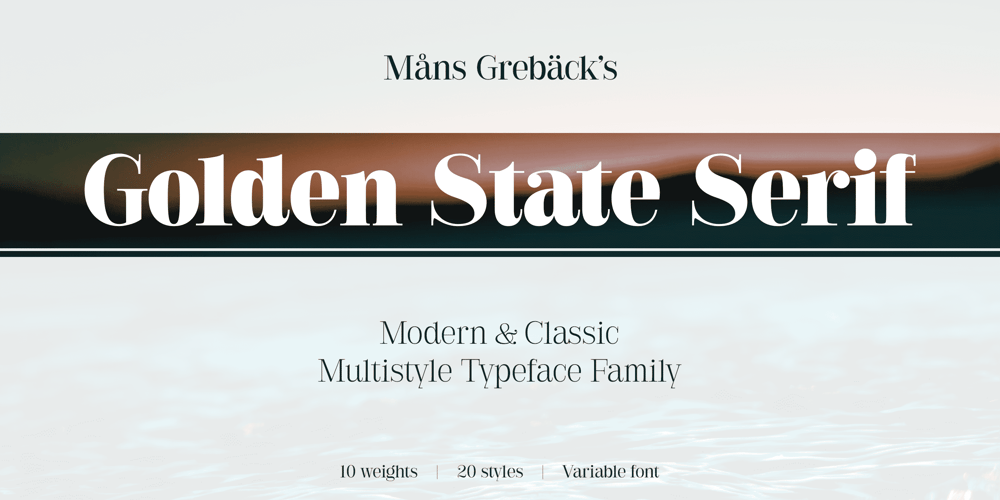
Golden State Serif
Golden State Serif font
Golden State Serif Font Family was designed by Måns Grebäck and published by Mans Greback. Golden State Serif contains 20 styles and family package options. Golden State Serif is a finely crafted typeface that blends classic elegance with modern versatility. Golden State Serif is a basic serif typeface, designed with regular weight and balanced proportions. Its timeless appeal makes it suitable for art and design projects, while its neutrality ensures readability in newspapers and formal documents. The font exudes a sense of formality and refinement, making it a reliable choice for any professional setting. Golden State Serif is also available as a variable font, offering seamless adjustability in weight and style in hundreds of variations distilled down to a single font file. This allows for precise customization to match your design needs, providing flexibility and a wide range of typographic expressions within a single typeface.More info about Variable Fonts: https://mansgreback.com/variable-fontsThe font is built with advanced OpenType functionality and guaranteed top-notch quality, containing stylistic and contextual alternates, ligatures, and more automatic and manual features; all to give you full control and customizability.It has extensive lingual support, covering all Latin-based languages, from North Europa to South Africa, from America to South-East Asia. It contains all characters and symbols you’ll ever need, including all punctuation and numbers.Golden State Serif is designed by Mans Greback to bring a sense of classic sophistication and neutrality to your projects, with its formal and timeless style.